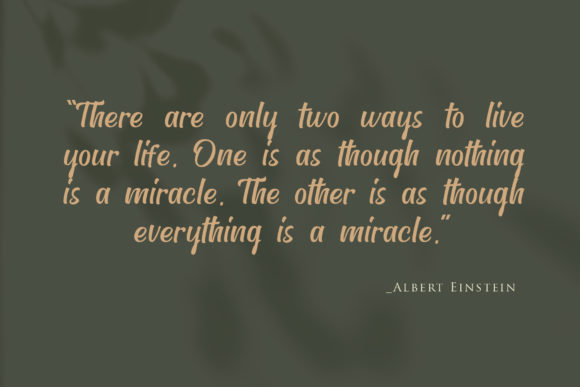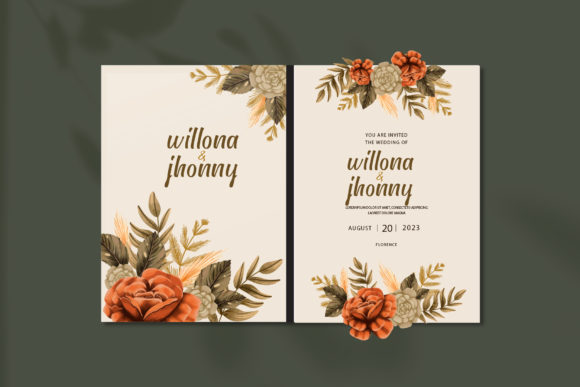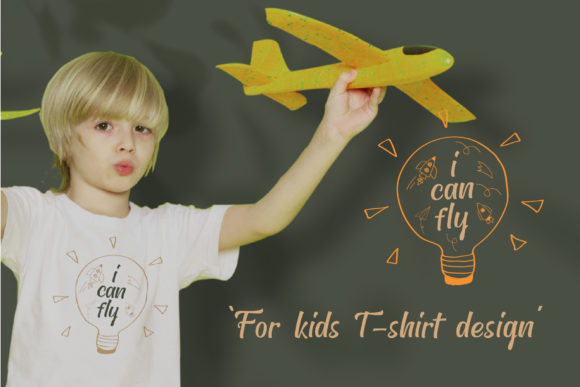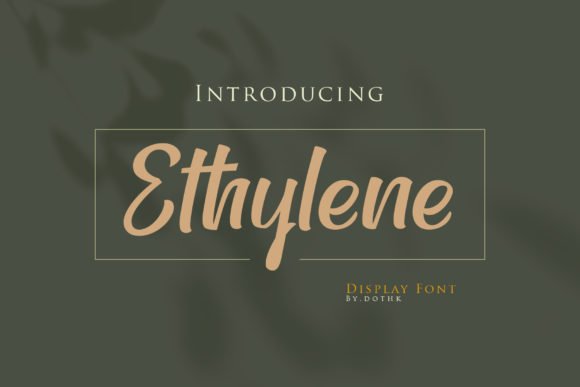
Introduction to Ethylene Font
Ethylene is a lovely and timeless handwritten font.
Key Features of Ethylene Font
Why Choose Ethylene Font?
Ethylene Font offers exceptional quality and versatility, making it a valuable addition to your design toolkit. Whether you’re creating for personal projects or commercial use, Ethylene Font delivers professional results.